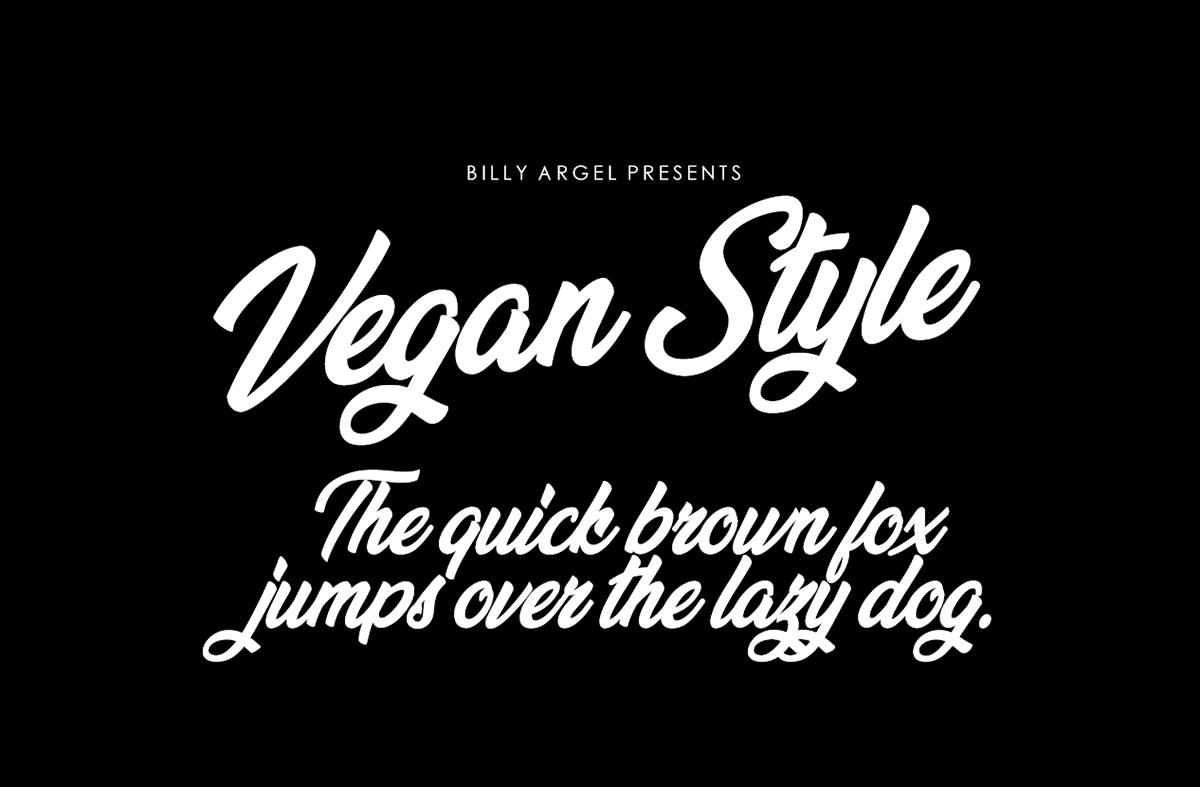
Vegan Style Font
Let’s introduce Vegan Style Font, this is a stunning handwritten font in the market of typefaces. This font having thick and bold strokes that are great for artistic designs, Media Posts, and Social Media purposes. This glorious typeface was designed in 2018 by a famous graphic designer Mr. Billy Argel.
This font family has one regular style that is providing 269 unique glyphs and 283 interesting characters including Uppercase, Lowercase, General Punctuations, Numerals, Stylistic Alternates, Symbols, and unique icons.
It has cursive textures and bold strokes to make this font suitable for display tasks. It was designed with keen attention and all the characters have organized without any single mistake. So you can see these hand-made characters are very clear and arranged.
Vegan Style Handwritten Font